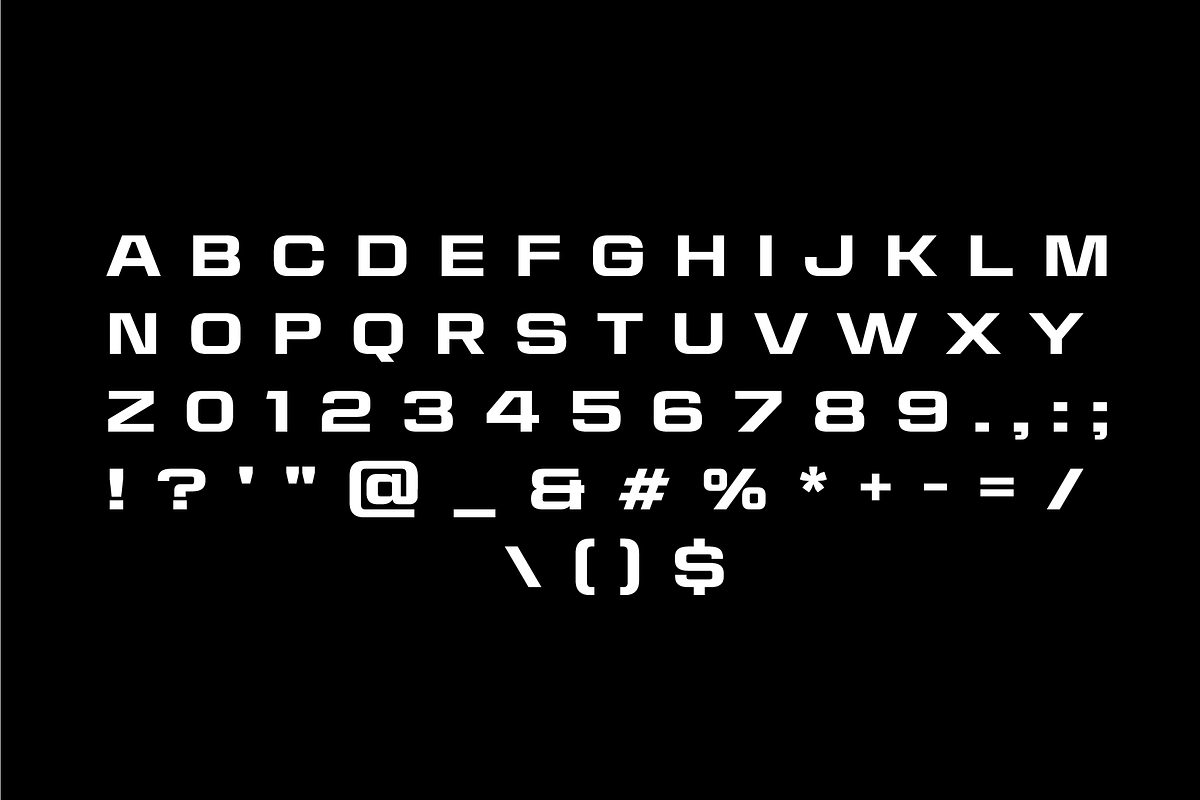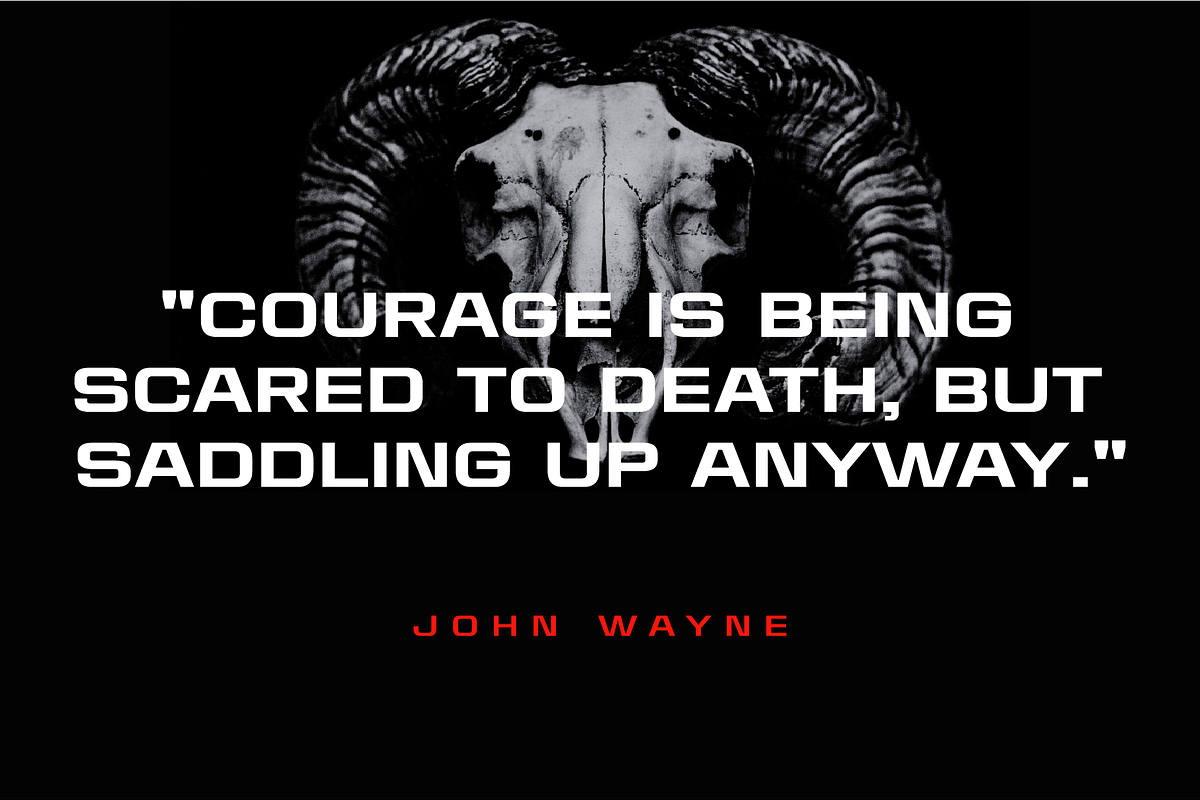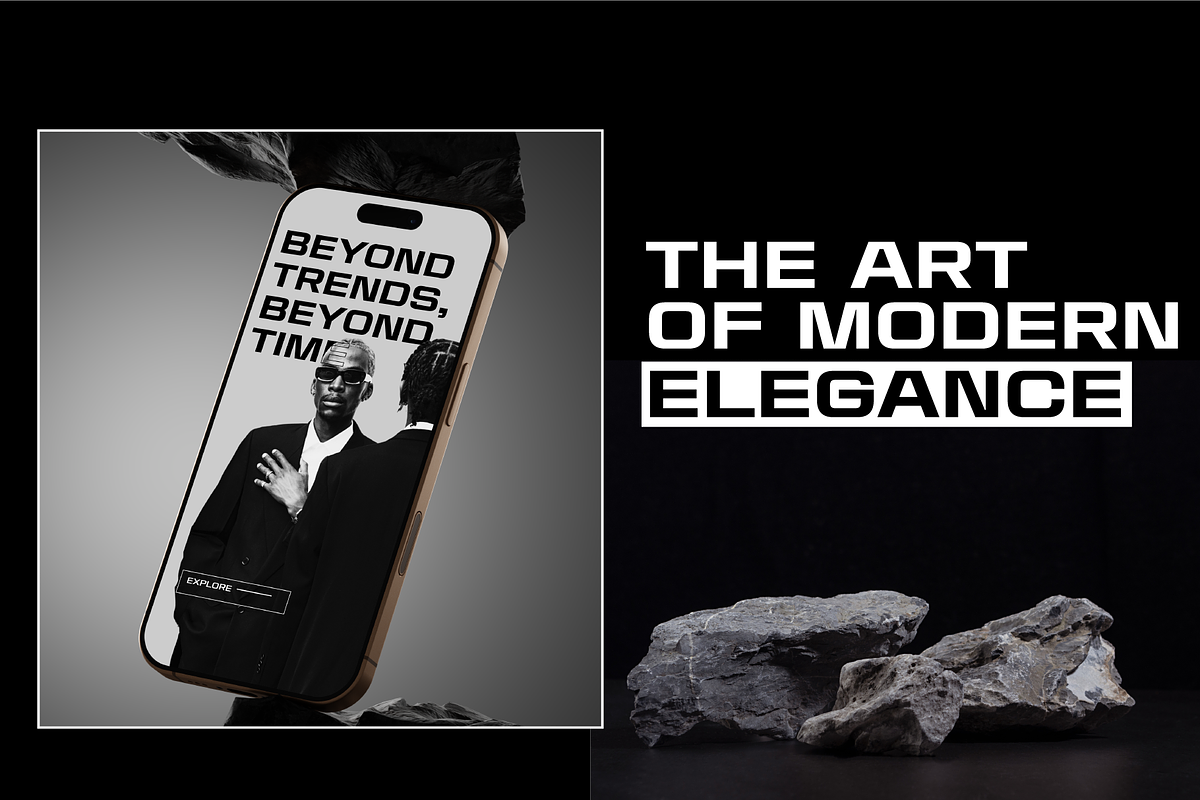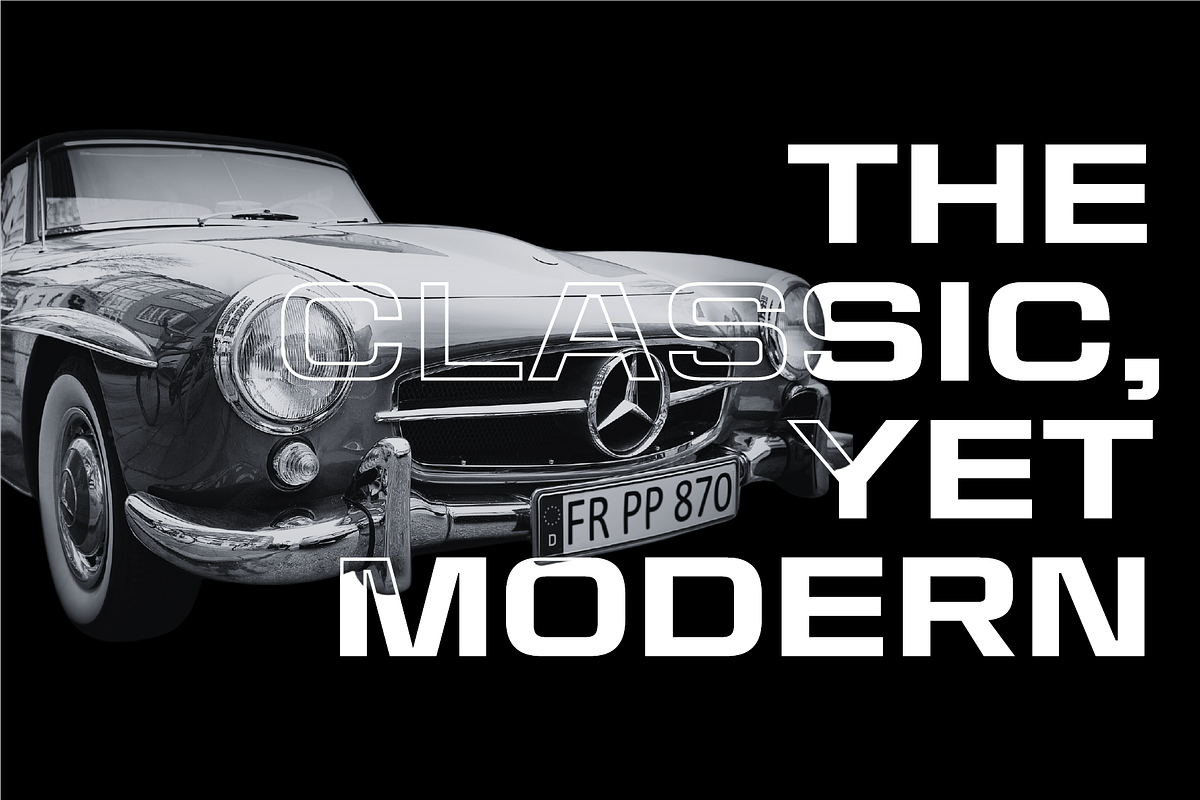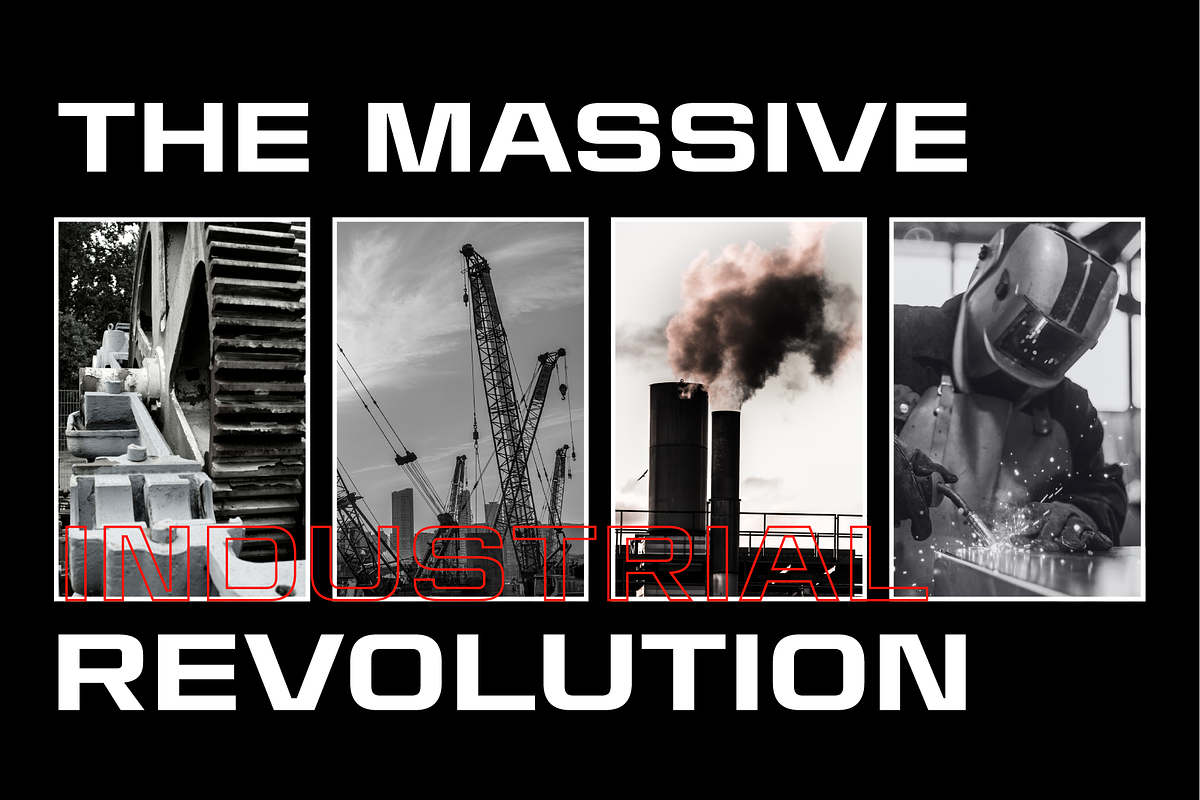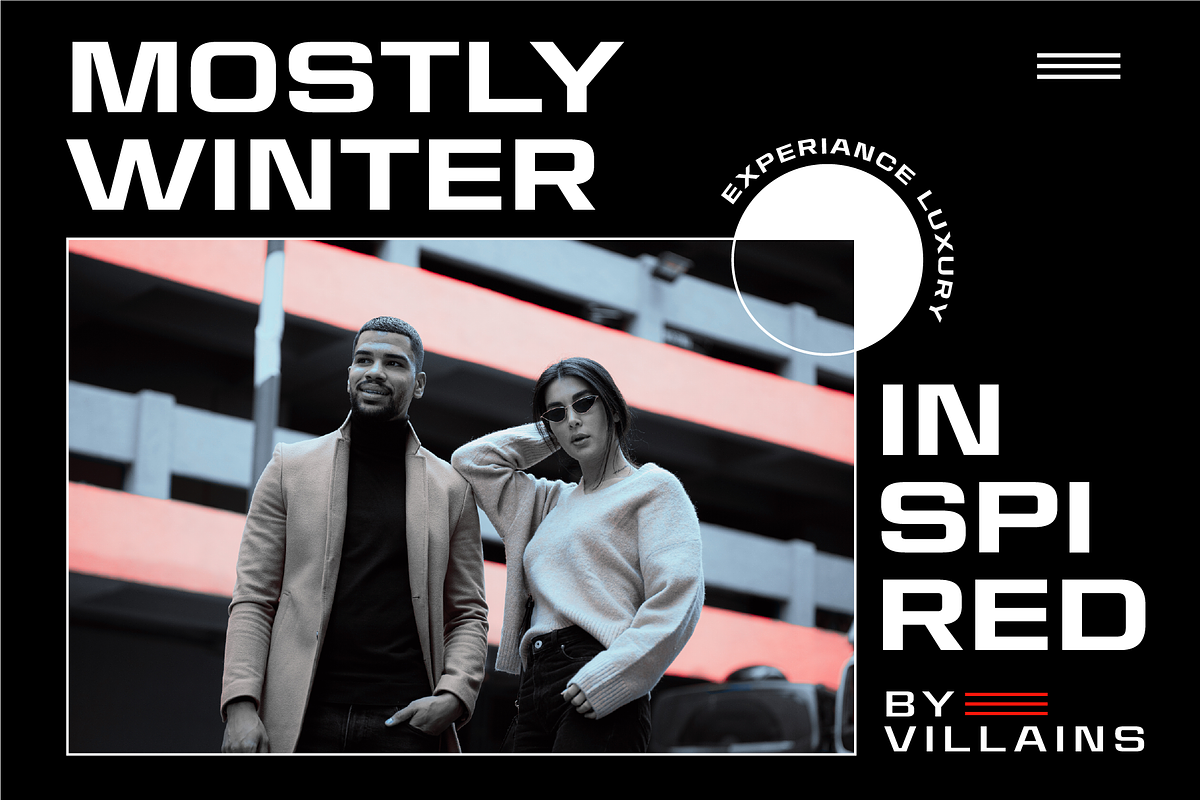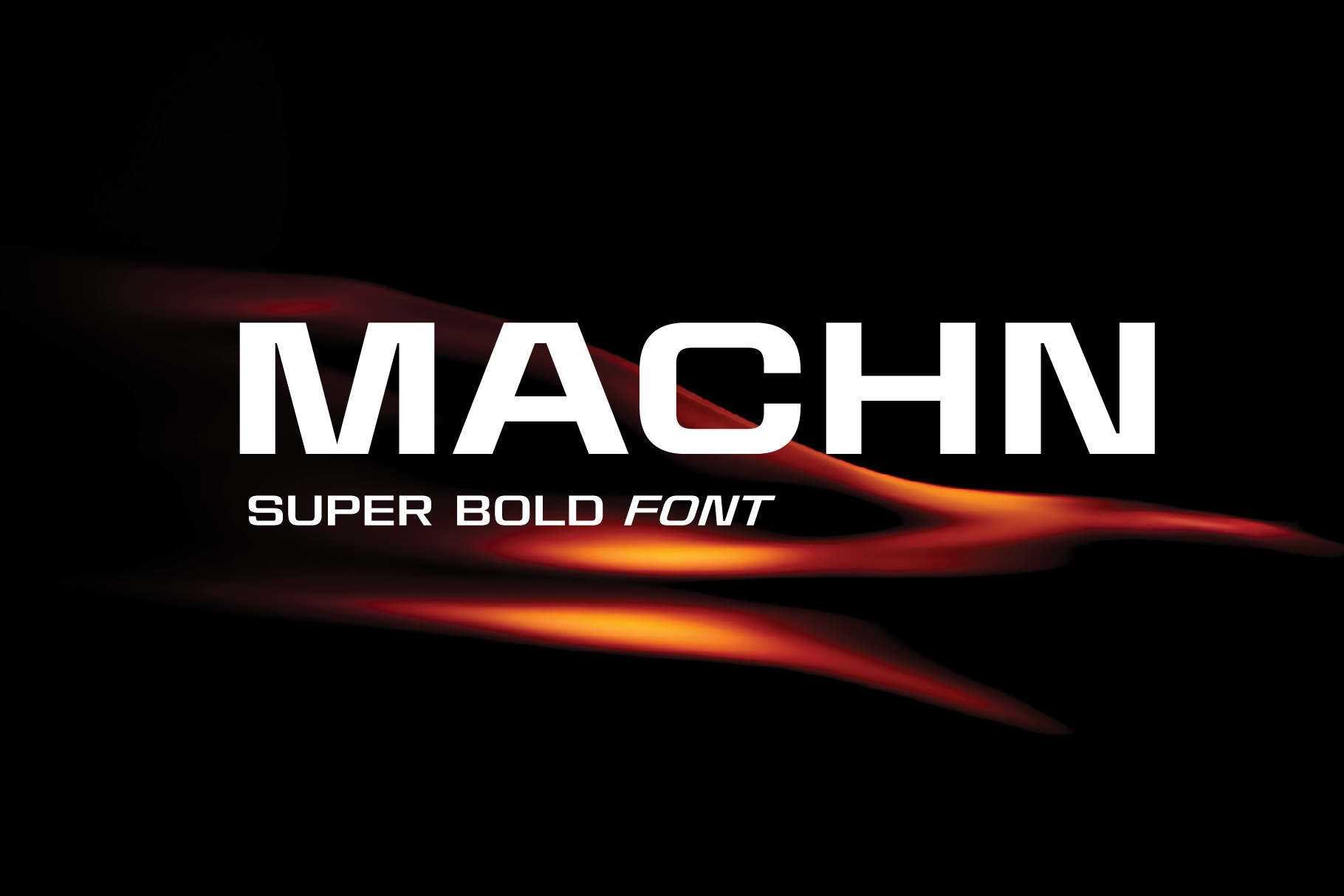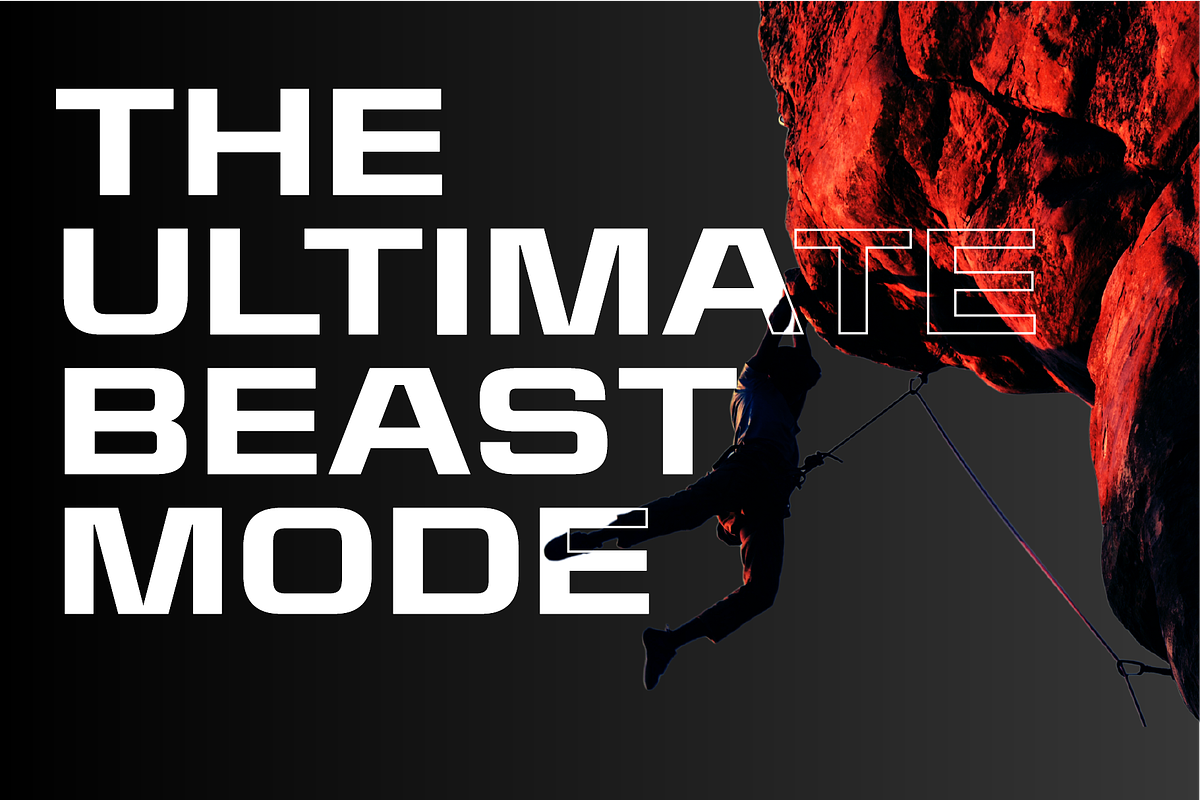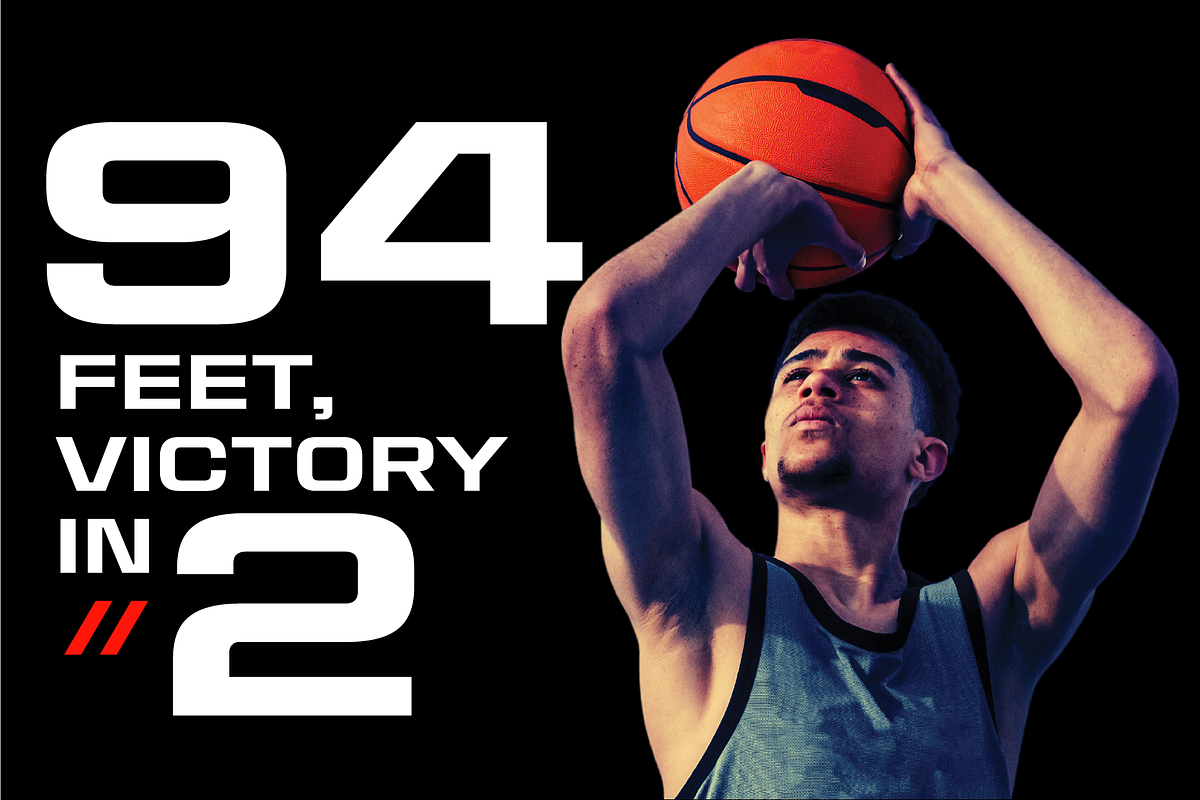
Machn Bold Expanded Sans Serif Font
Machn is a striking expanded sans-serif font designed for bold statements and high-impact visuals. With its strong geometric structure, wide letterforms, and clean lines, this geometric typeface exudes a sense of power, modernity, and confidence. Ideal for logos, branding, headlines, posters, and tech-inspired designs, Machn seamlessly blends industrial strength with contemporary aesthetics.